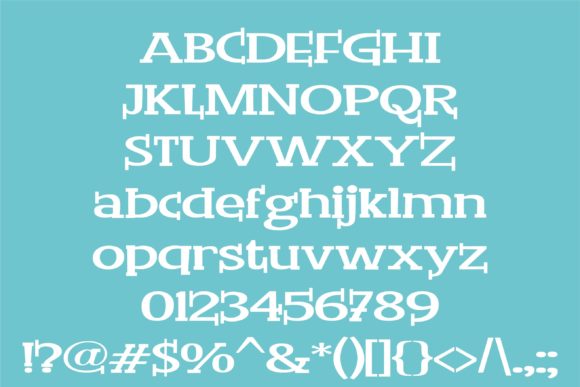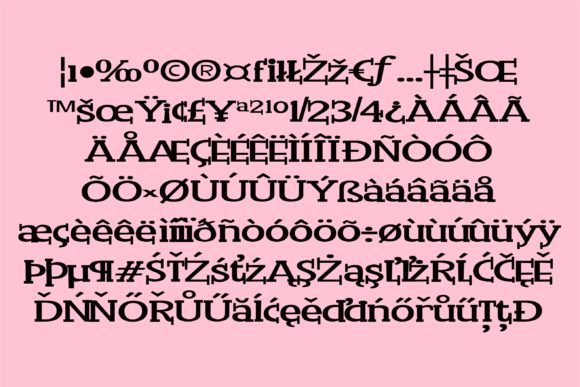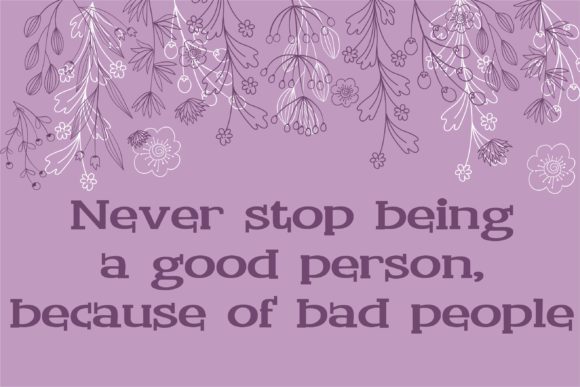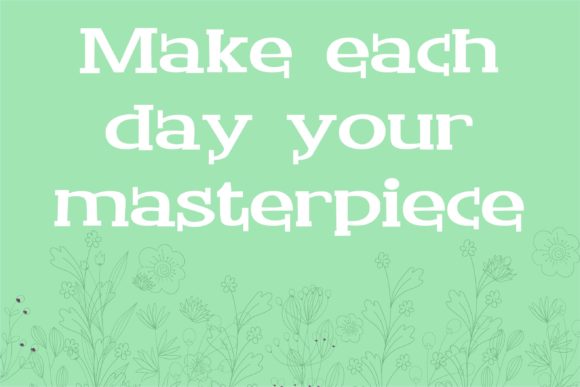
Introduction to Frescade Font
Frescade is a crafty serif font with a playful vibe.
Ignite your creativity with its unique, dynamic style .
Key Features of Frescade Font
Why Choose Frescade Font?
Frescade Font offers exceptional quality and versatility, making it a valuable addition to your design toolkit. Whether you’re creating for personal projects or commercial use, Frescade Font delivers professional results.